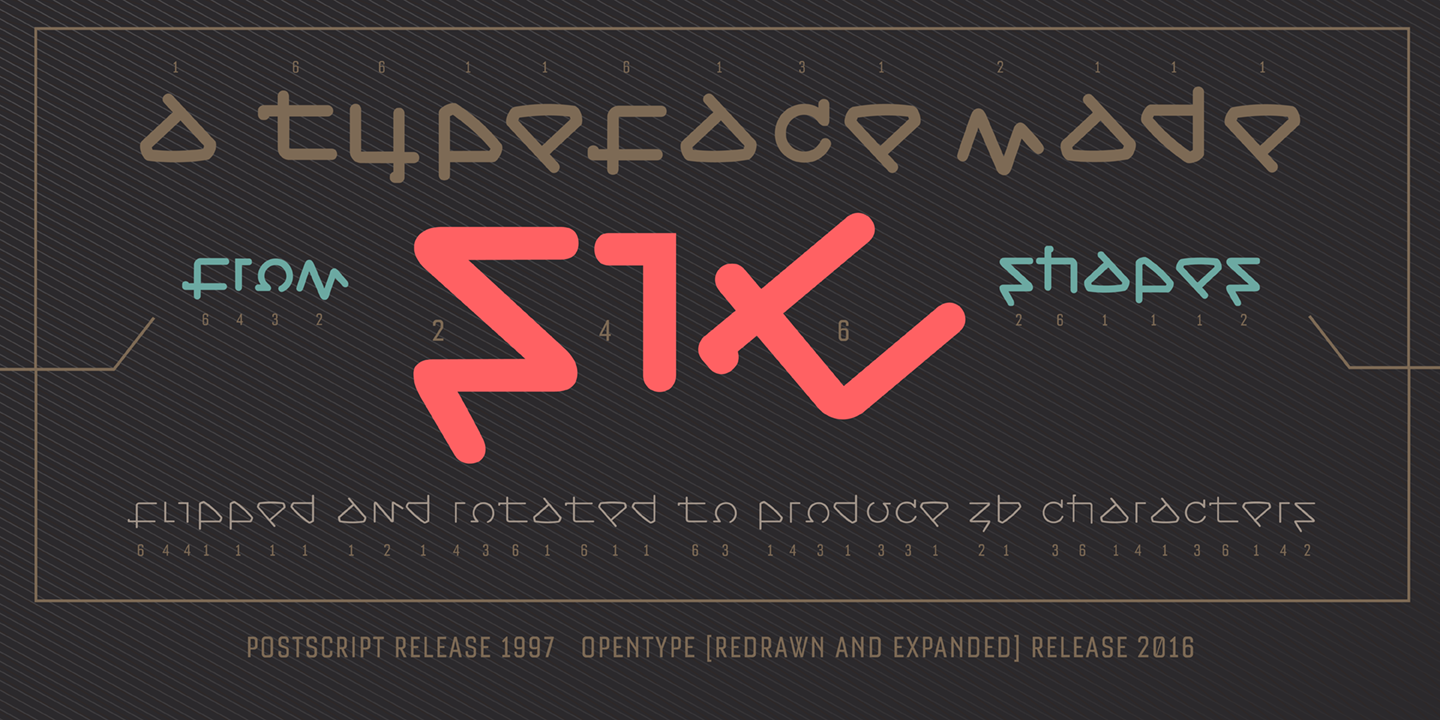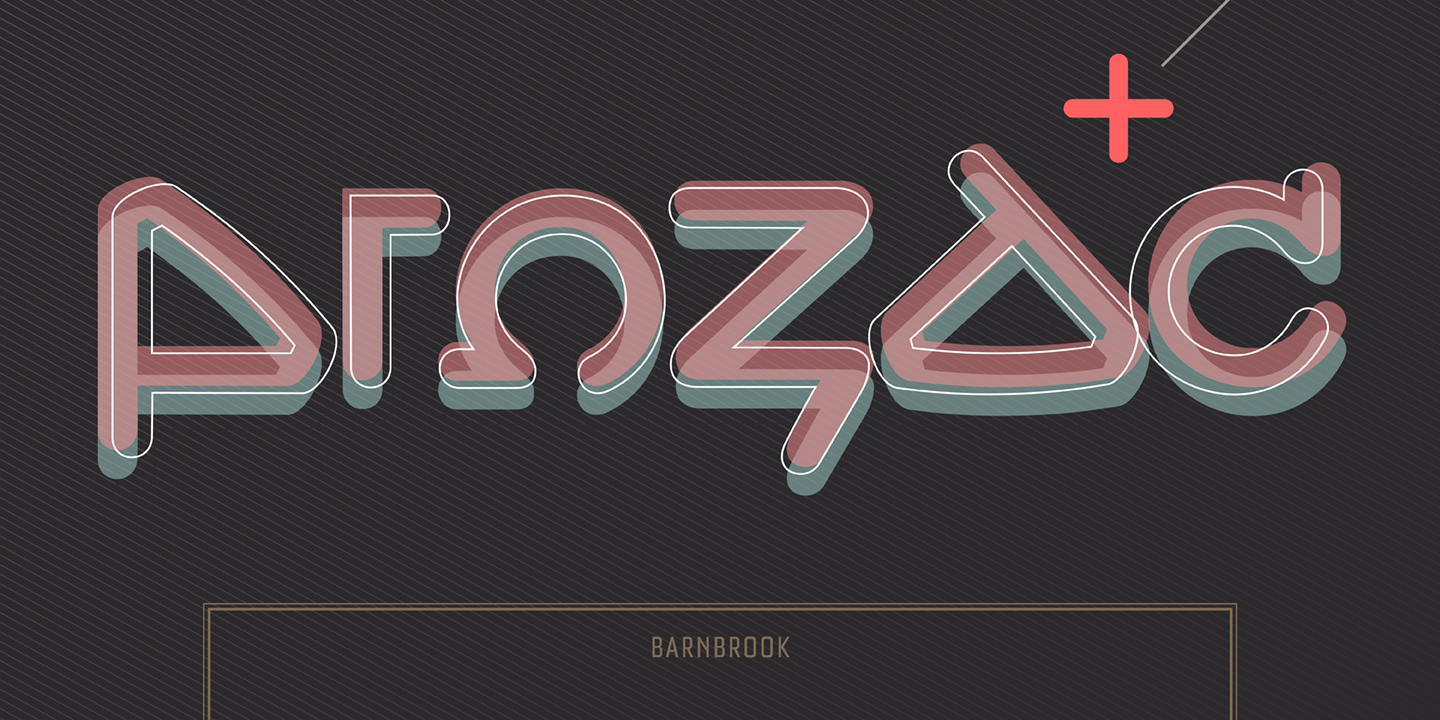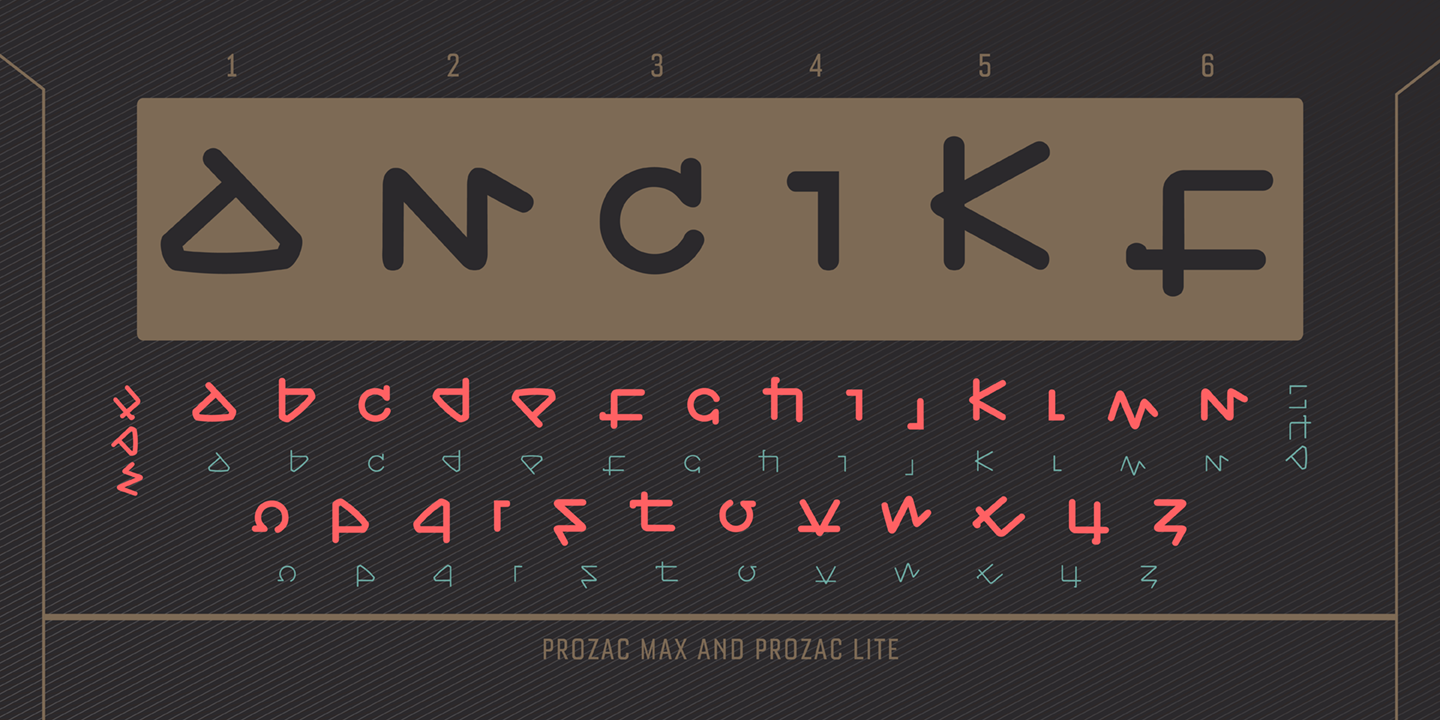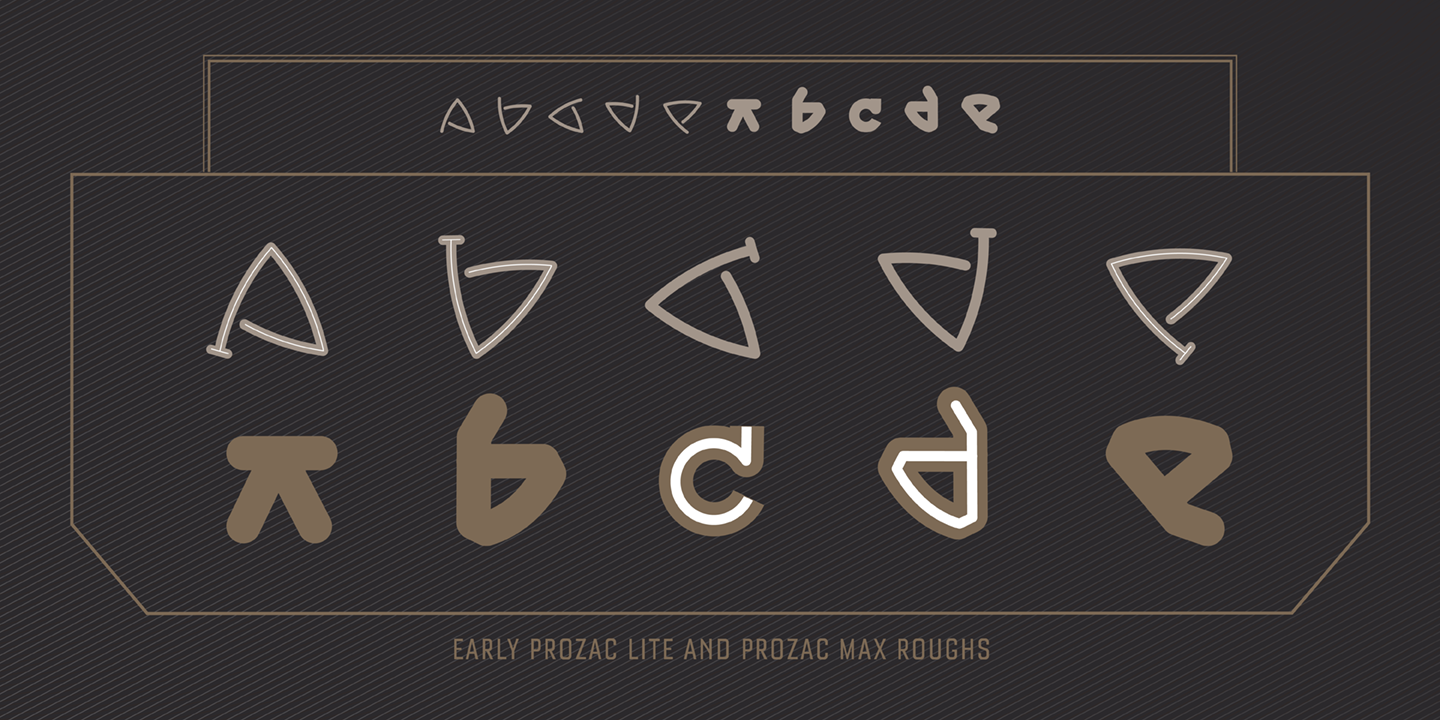
Throughout the history of typography there have been countless attempts to simplify the alphabet. In the early 20th century, modernist designers experimented with reducing the alphabet to basic geometric shapes. Prozac pushes this utopian experiment further by reducing the roman alphabet to just six shapes. These shapes are then flipped or rotated to make up the 26 letters of the alphabet. Prozac is available without prescription in lite and max versions.